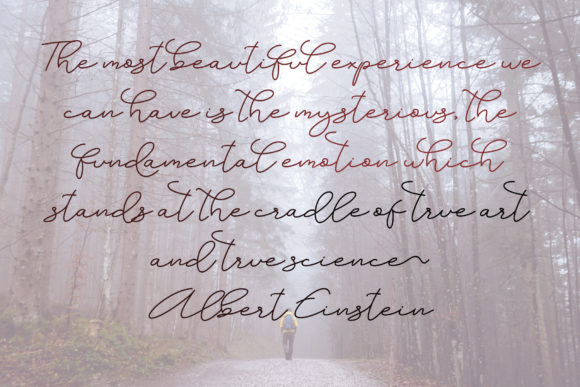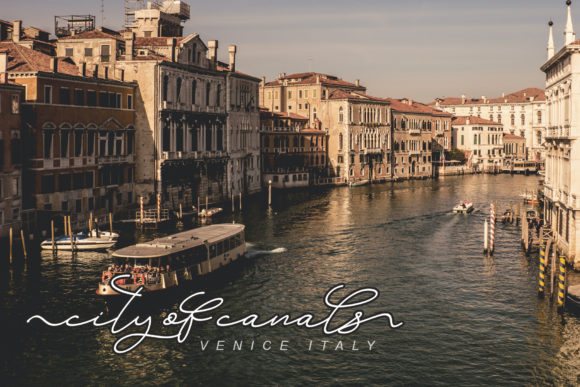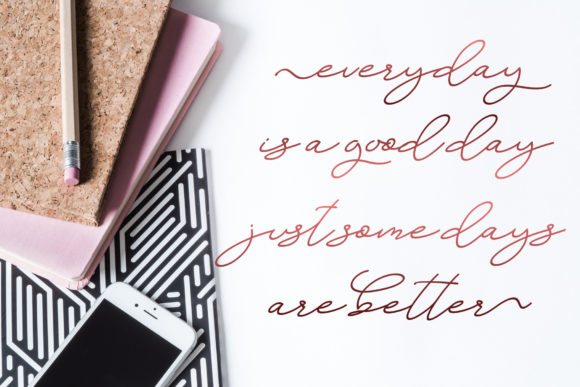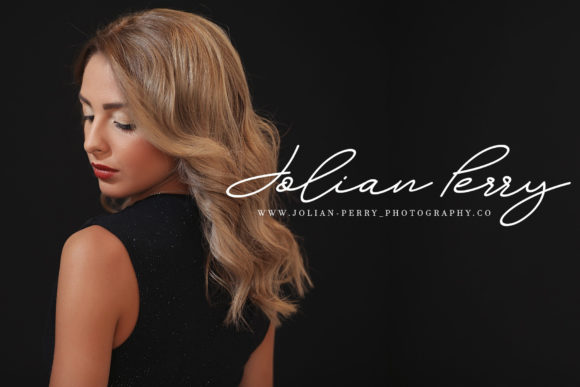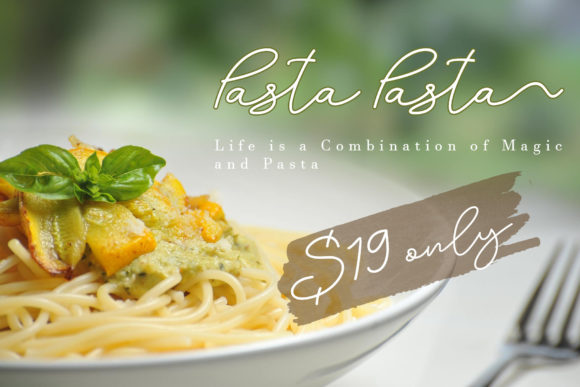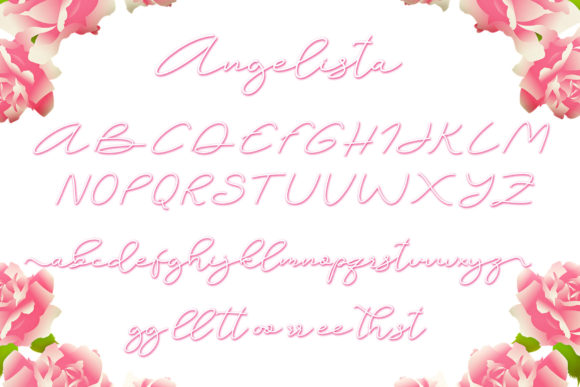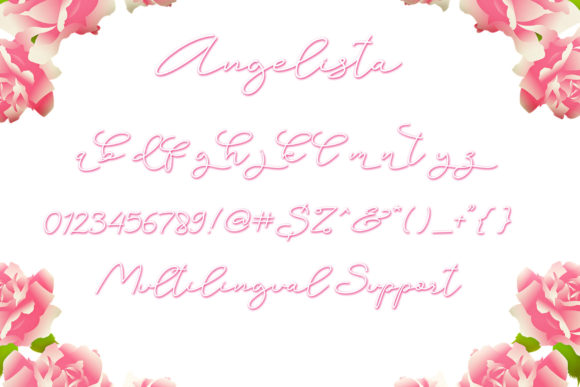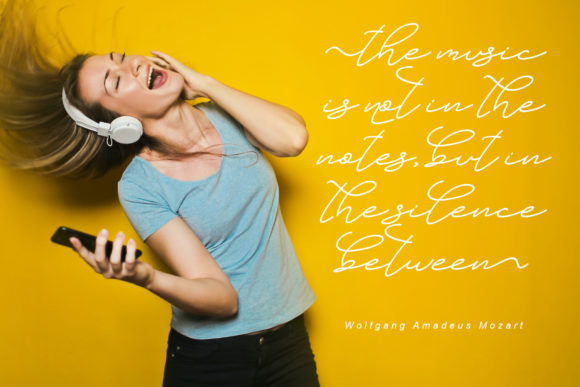
Angelista Font
About Angelista Font
Angelista is a delightful and whimsical handwritten font that adds a touch of charm and playfulness to your designs. With its cute, thin, and cursive style, this font is perfect for bringing a sense of joy and liveliness to your projects.
The sweet and lively nature of Angelista makes it a wonderful choice for brightening up your designs. Whether you’re creating greeting cards, invitations, posters, or social media graphics, this font will add a cheerful and uplifting vibe.
The PUA encoding of Angelista allows for easy access to all of the glyphs and swashes. This means you can effortlessly incorporate the special characters, ligatures, and decorative elements into your designs, adding extra flair and customization options.
Angelista is versatile and can be used in a variety of design contexts. It is particularly well-suited for projects that require a touch of whimsy and a youthful aesthetic. From children’s book covers to playful branding and stationery, this font will bring a sense of delight and personality to your creations.
The thin and cursive strokes of Angelista give it a delicate and elegant appearance. Each letter is carefully crafted with attention to detail, resulting in a font that feels light and graceful. This adds a sense of refinement and beauty to your text, making your designs more visually appealing.
In conclusion, Angelista is a cute, thin, and cursive handwritten font that adds a lively and charming touch to your designs. With its sweet and full-of-life style, it is a wonderful choice for brightening up your projects. The PUA encoding allows for easy access to all the glyphs and swashes, providing you with flexibility and customization options. Embrace the whimsy of Angelista and let it bring joy and playfulness to your designs.